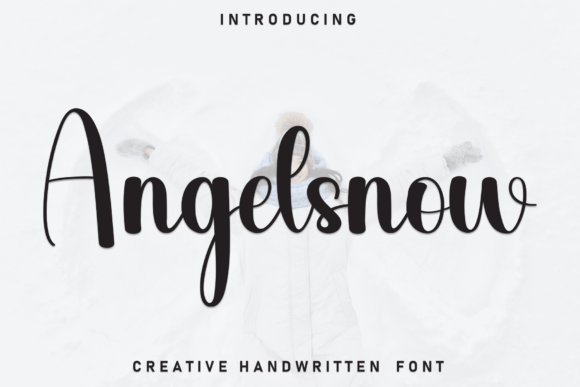
Unleashing the Elegance: Discover the Beauty of Angelsnow Font
There’s something magical about the moment when a design comes together – the perfect fusion of creativity, inspiration, and skill. For designers, this moment is what makes all the late nights and early mornings worth it. And when it happens, it’s like a breath of fresh air, leaving you feeling invigorated and eager to take on the next project. One such moment can be triggered by the introduction of a new, stylish script font – one that exudes elegance and contemporary charm.
Meet Angelsnow Font, a beautifully crafted script font designed to add a refined and sophisticated touch to any design. With its natural flow and polished details, this font is perfect for logos, invitations, packaging, and social media graphics, making it an essential tool for designers looking to elevate their work.
Angelsnow Font Key Features
- Font Family: Angelsnow – a beautiful, elegant, and cursive script font.
- Character Count: The Angelsnow font contains a large character set, including uppercase and lowercase letters, numerals, punctuation marks, and special characters.
- Unique Characteristics: Features intricate, flowing lines, and subtle flourishes, making it perfect for creating elegant and sophisticated designs.
Designer Review: Angelsnow Font
I’ve had the chance to work with the Angelsnow font, and I must say it’s an interesting choice. ✨ The font’s elegant and refined design makes it perfect for high-end branding, fashion, and luxury products. The subtle curves and delicate lines evoke a sense of sophistication, which is great for creating a premium look.
- ✨ Elegant and refined design
- ✨ Suitable for high-end branding and luxury products
- ✨ Subtle curves and delicate lines create a sophisticated look
However, there are some limitations to consider. ⚠️ The font’s readability can be a concern, especially at smaller font sizes. The delicate lines can sometimes make it difficult to distinguish between certain letters, which may lead to confusion. Additionally, the font’s limited character set may not be suitable for longer blocks of text.
- ⚠️ Limited readability at smaller font sizes
- ⚠️ Delicate lines can cause confusion between certain letters
- ⚠️ Limited character set may not be suitable for longer text
Overall, I think the Angelsnow font is a great choice for specific projects that require a high-end look. However, it’s essential to consider the limitations and ensure the font is used in a way that showcases its strengths.
Tips for Getting the Most Out of Angelsnow Font
Angelsnow Font is ideal for creating elegant and sophisticated designs. To get the most out of it, use it in combination with soft colors and gentle textures.
Angelsnow Font is commonly used in wedding invitations, baby announcements, and other special occasion designs. It’s also great for creating luxurious and